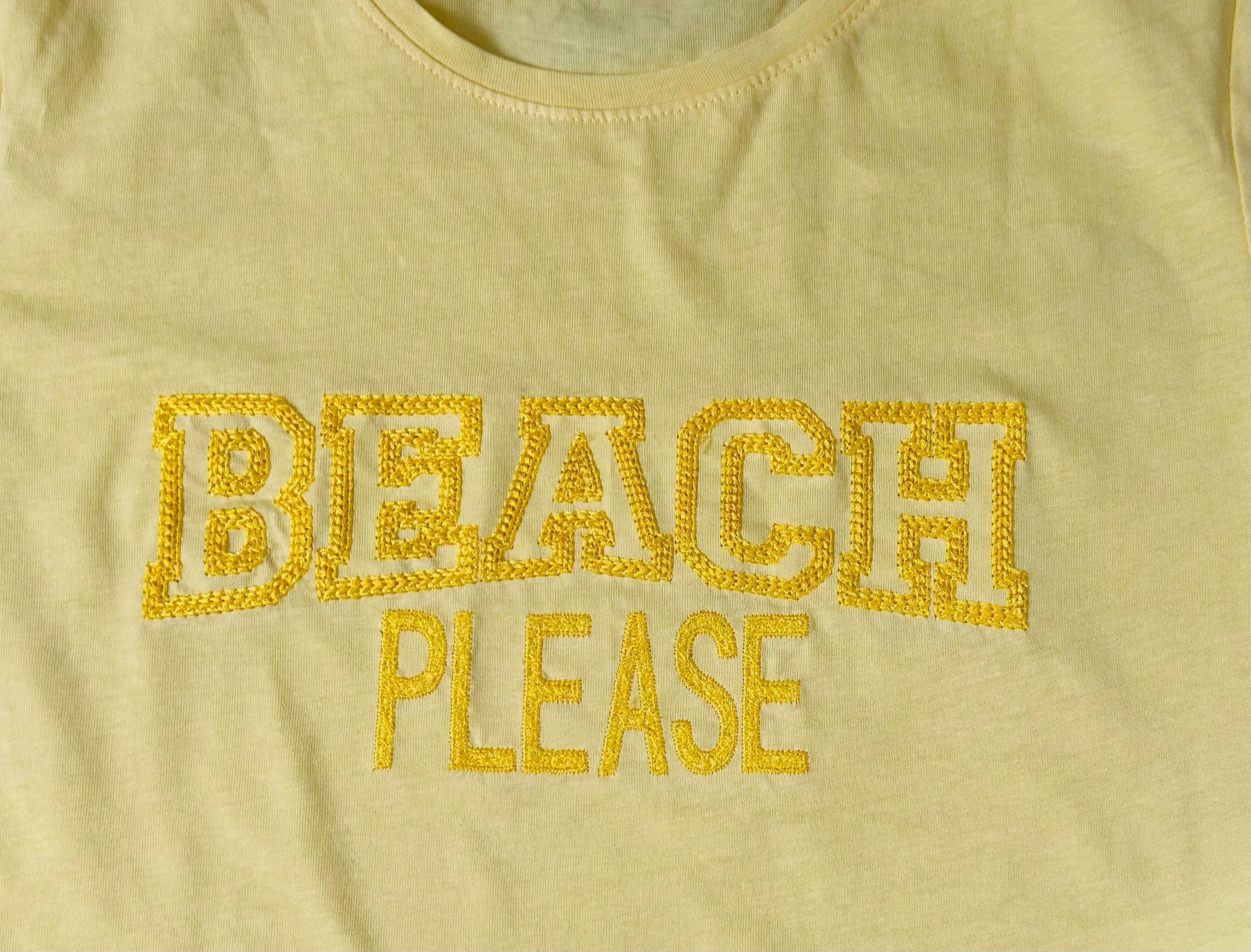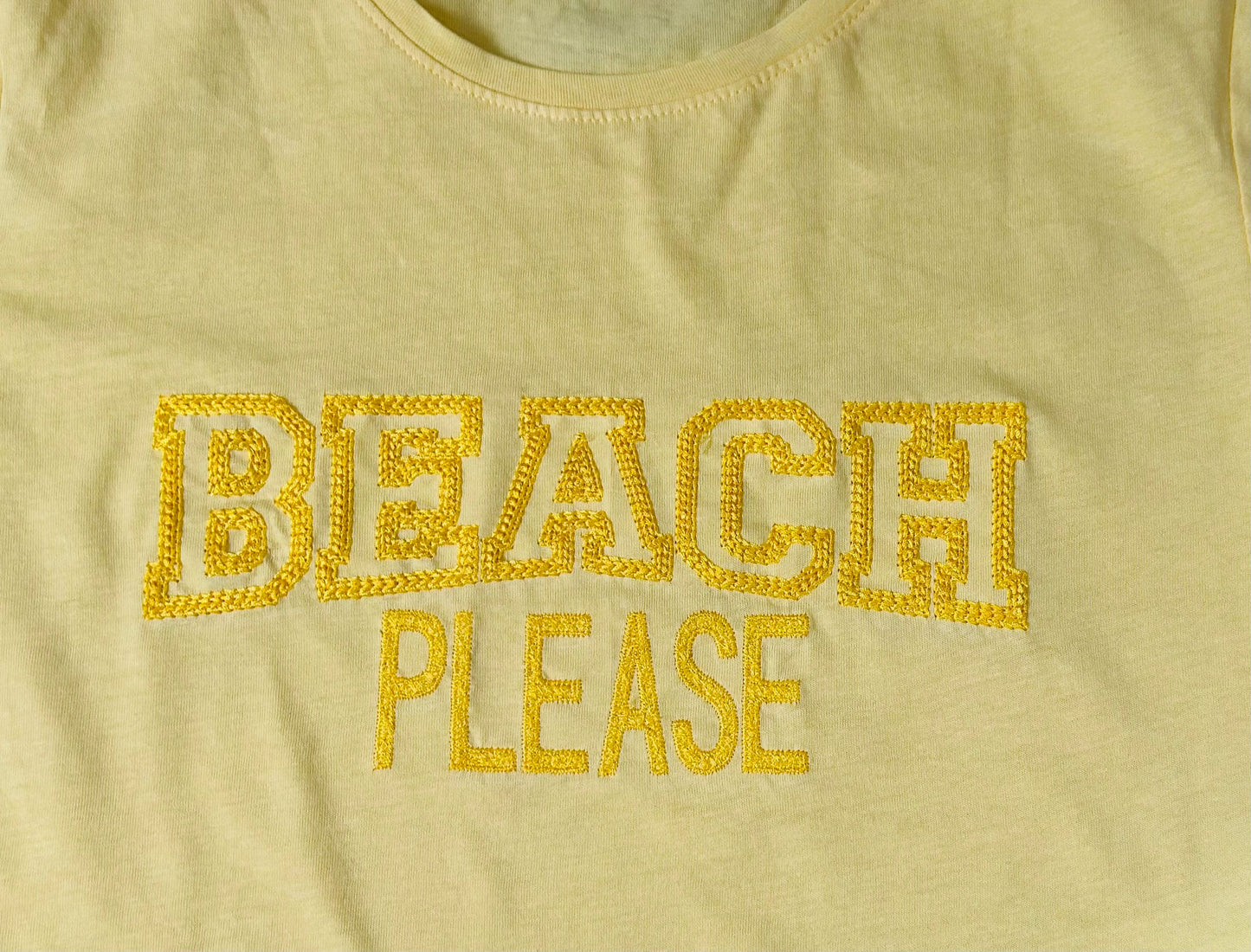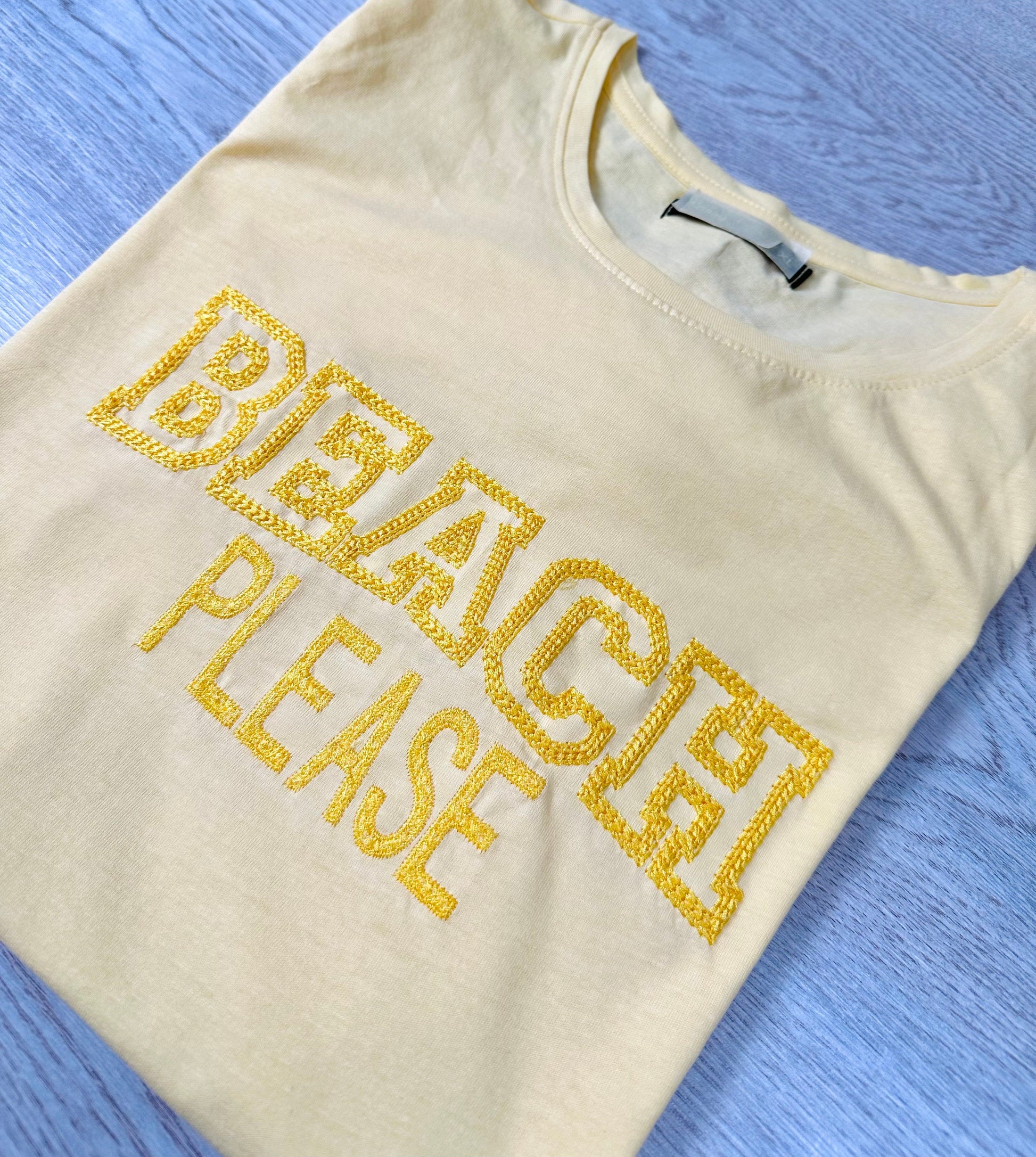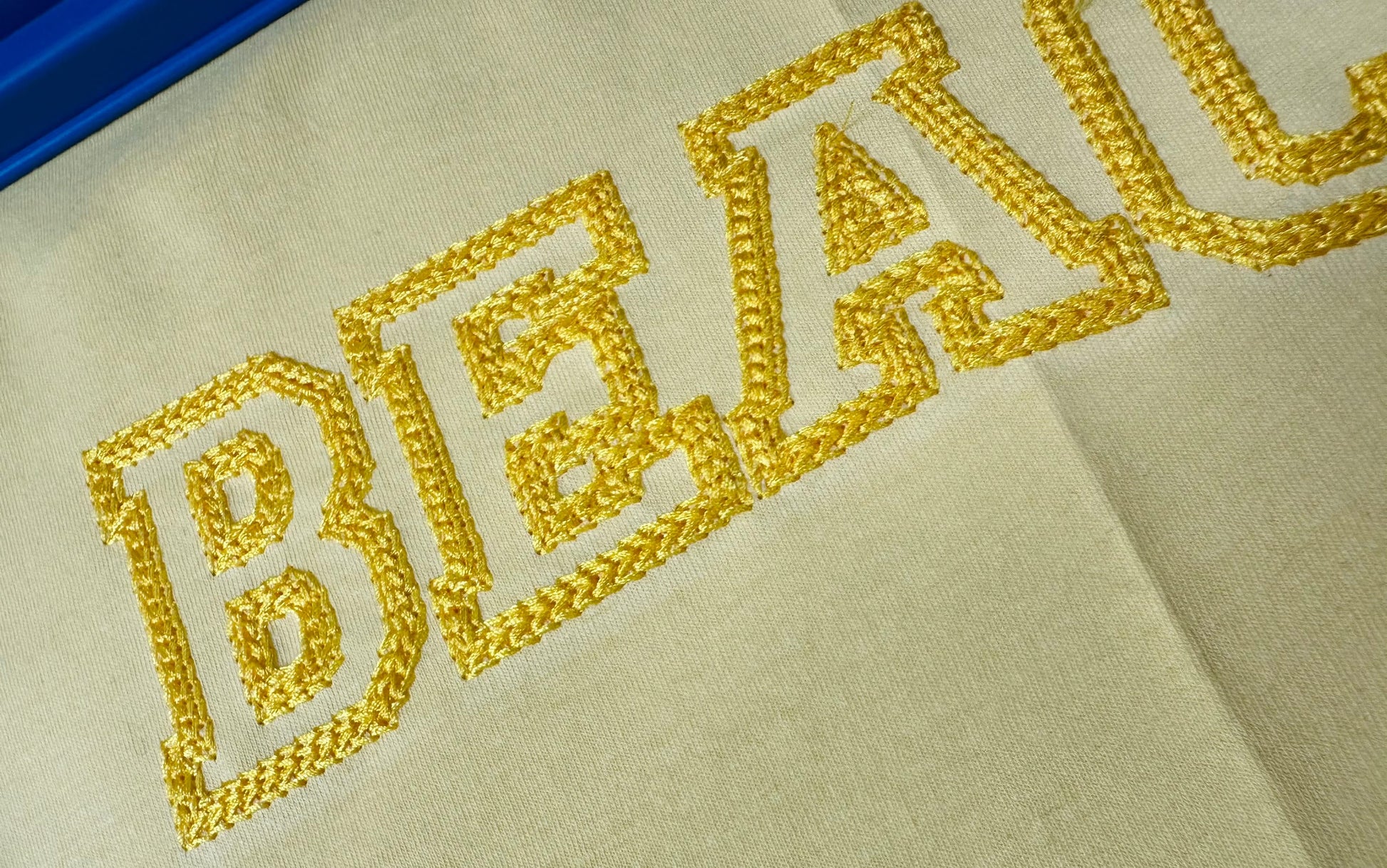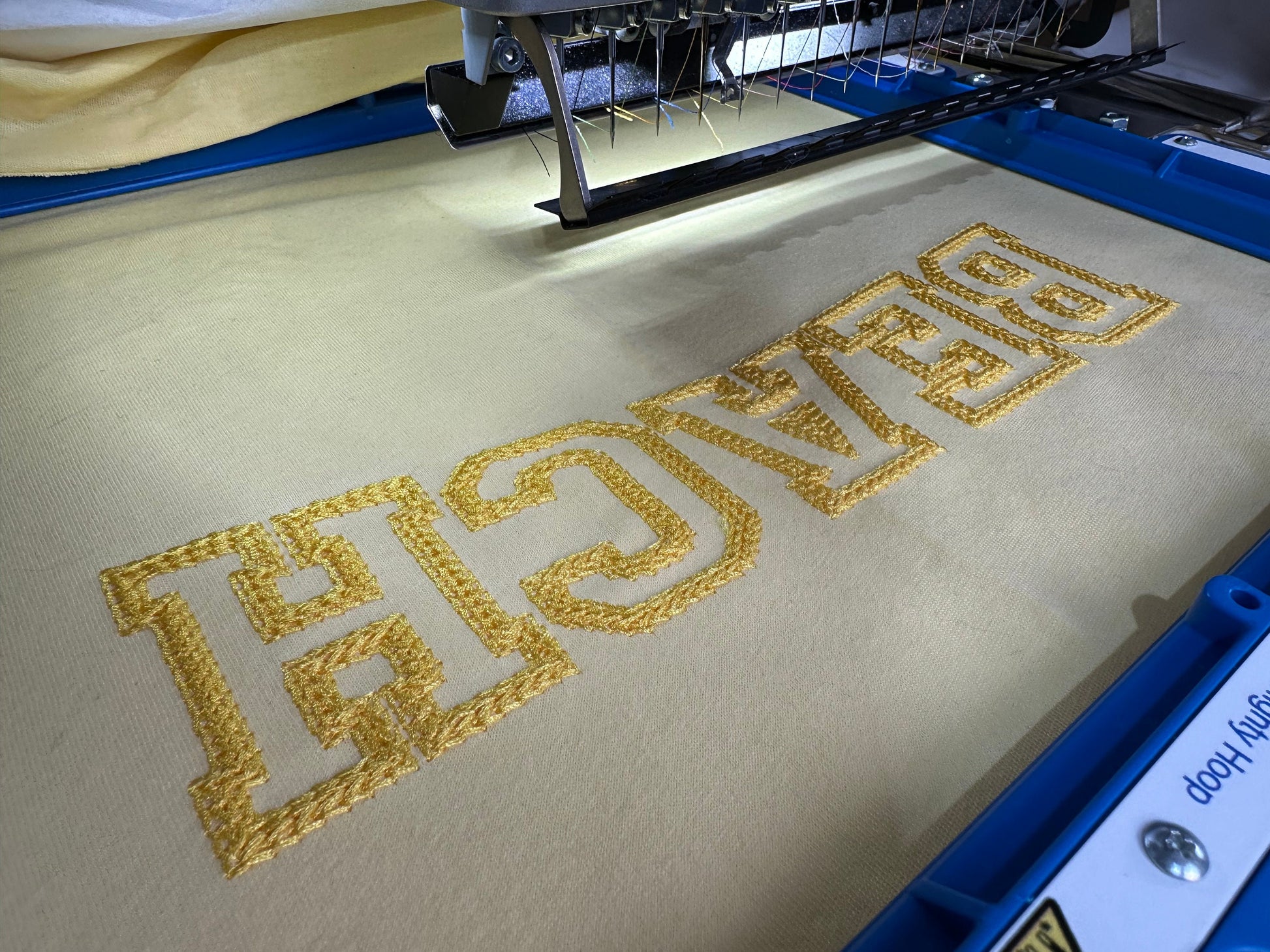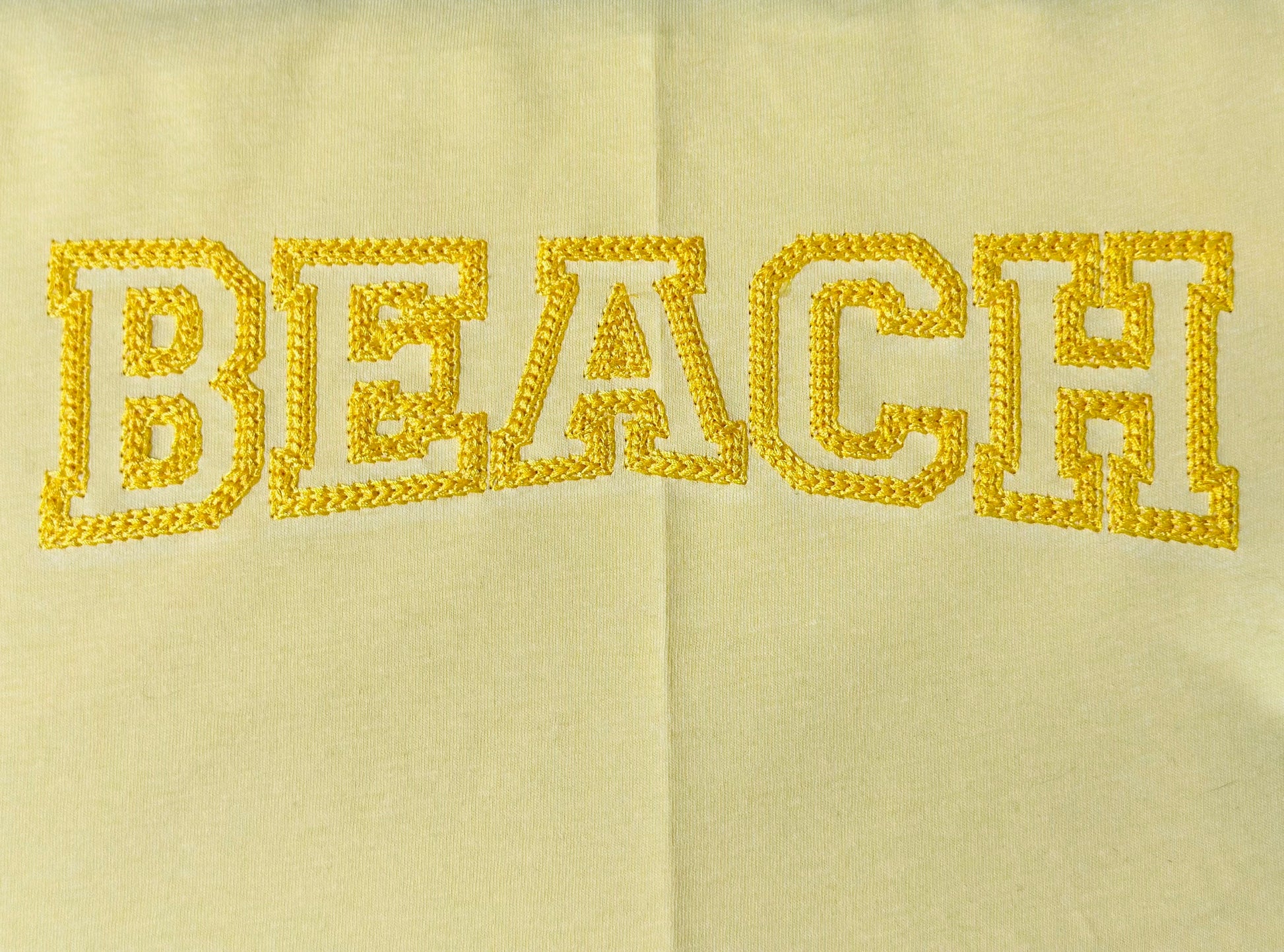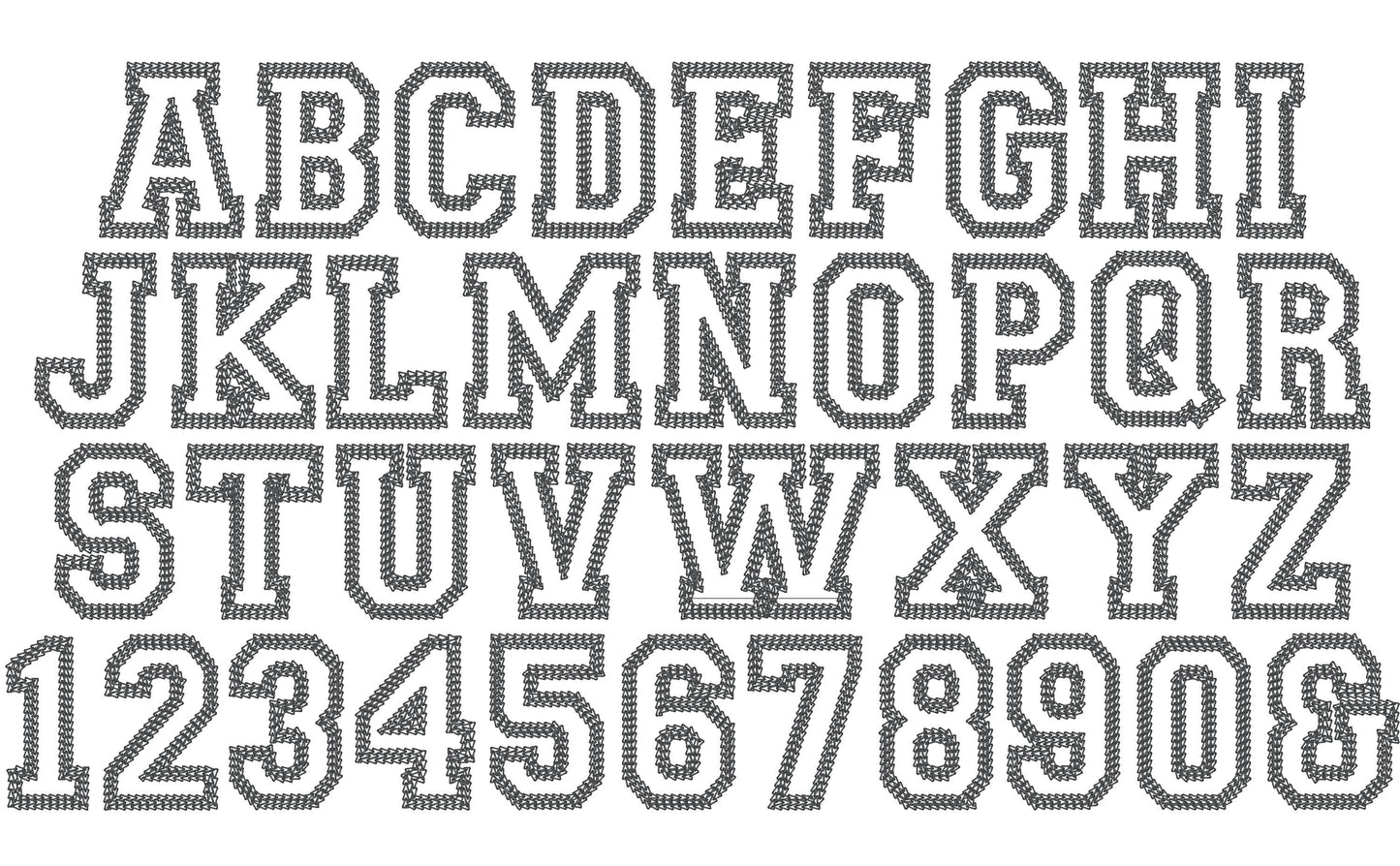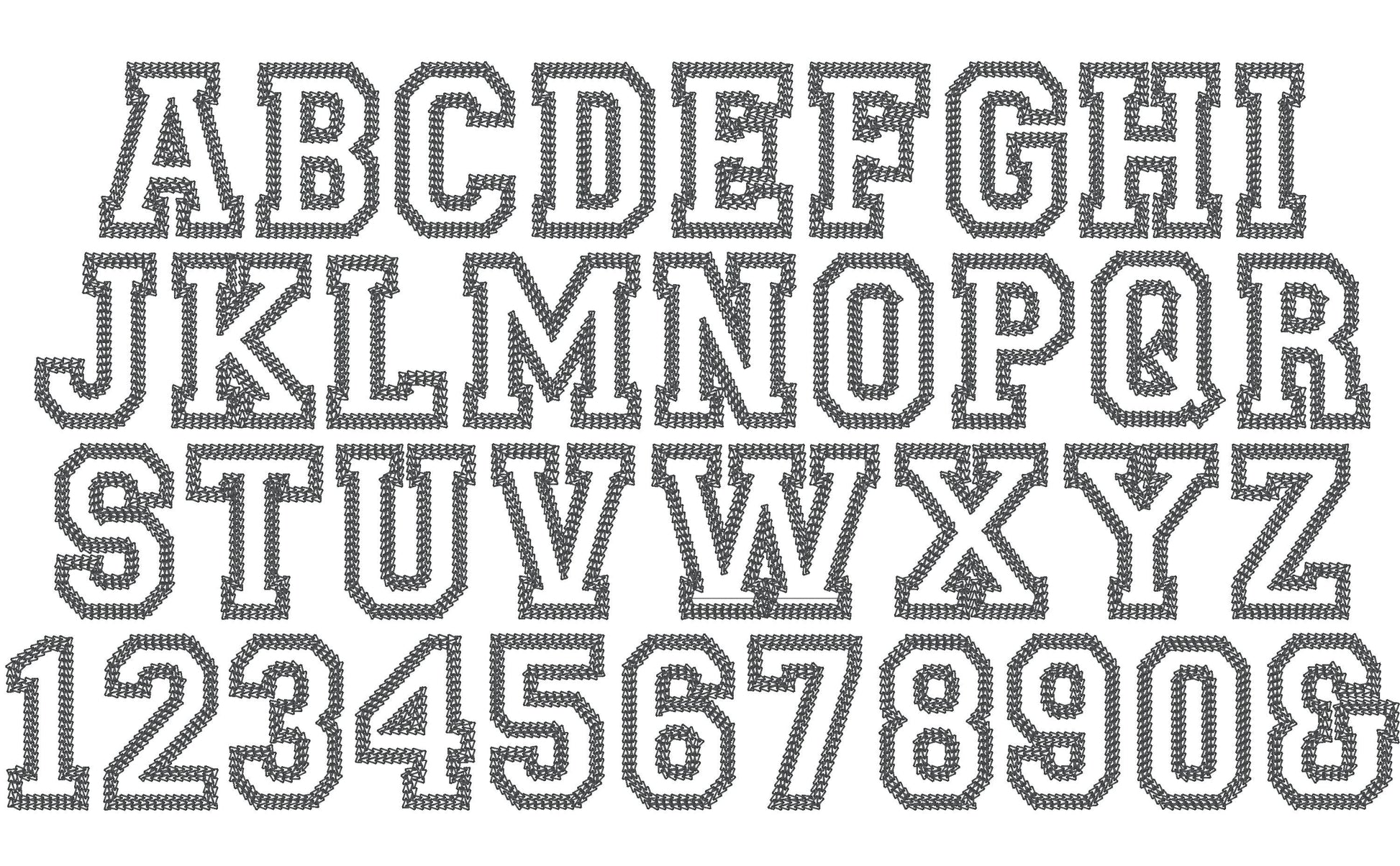
Or click to open the linkA varsity collegiate font with a wide chain stitch outline. Sporty for team shirts, jackets, caps and school spirit wear.
Uppercase letters A to Z, numbers 0 to 9 and an ampersand, in six sizes: 1.5, 2, 2.5, 3, 3.5 and 4 inches. Each letter is outlined with a wide chain stitch.